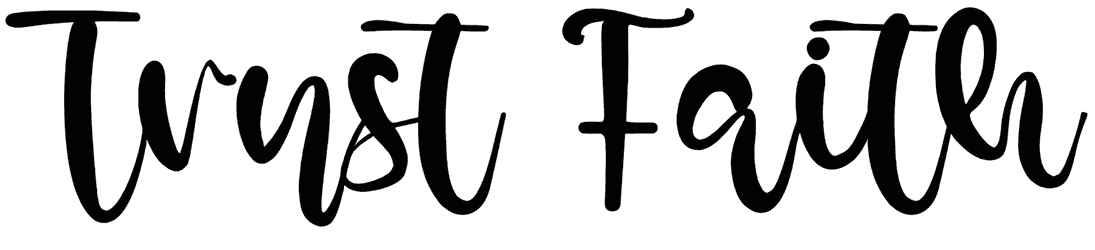
Trust Faith Font
Say hello to Trust Faith, a modern brush font supporting a complete set of characters that forms beautifully in a creative combination of thick and thin lines. This script font adds a beautiful touch with extra charm to your design, and you can use it for social media posts, book covers, greeting cards, product packaging, and branding.